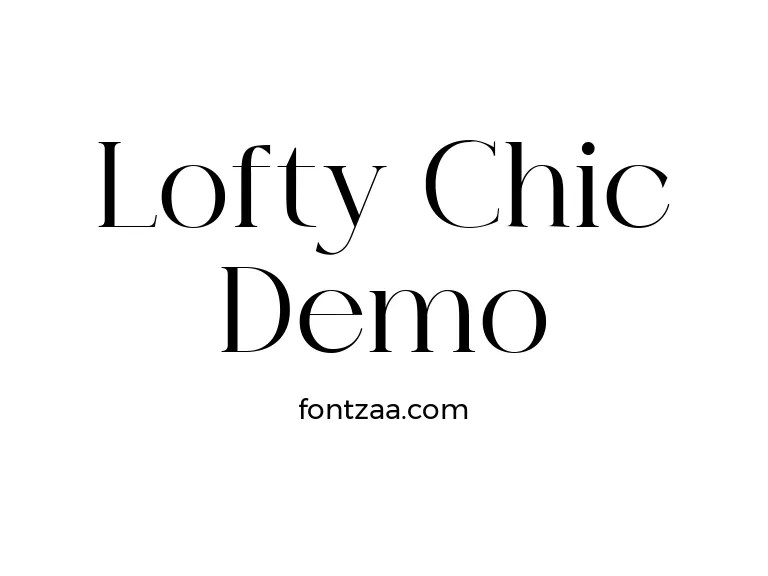
Lofty Chic Demo Font introduces a modern typographic style that can give creative projects a more individual appearance. Designers exploring a modern typeface can use Lofty Chic Demo Font to add a more recognizable visual voice to creative display work. Testing several arrangements before choosing the final version can reveal which characteristics of the typeface work best. The typeface can change considerably depending on tracking, scale, alignment, background and surrounding imagery. The font can work as the primary visual element in a minimal layout or as part of a more detailed composition. Its display-focused appearance makes it worth testing in logos, wordmarks, branding, posters, packaging and promotional graphics. A clean serif or sans serif companion can handle smaller text while this font remains focused on headlines and key messages. Designers should evaluate the typeface inside the real project because a standalone preview cannot show every possible visual combination. The designer or publisher information available for this typeface is Suandana Ipandemade. License details are currently listed as Free for personal use. Users should verify the supplied documentation before using the font in products or paid projects. Testing the font with the actual project text can provide a much better impression than viewing isolated sample characters.
Designers exploring a modern typeface can use Lofty Chic Demo Font to add a more recognizable visual voice to headlines, branding and promotional layouts. The typeface can change considerably depending on tracking, scale, alignment, background and surrounding imagery. Its letter shapes become especially noticeable at larger sizes, where spacing and proportions can be explored more clearly. Different color combinations can make the same font feel subtle, energetic, premium or highly decorative. Possible applications include logos, wordmarks, branding, posters, packaging and promotional graphics. Previewing the final layout on both large and small screens helps identify spacing and readability problems early. For layouts containing longer information, pairing it with a simpler supporting typeface can improve readability and hierarchy. According to the available font information, the typeface is associated with Suandana Ipandemade. The listed license is Free for personal use, although users should still review the original font package before commercial use. Testing the font with the actual project text can provide a much better impression than viewing isolated sample characters.
For projects that need typography with a stronger identity, Lofty Chic Demo Font offers a modern direction suited to digital and print projects. Testing several arrangements before choosing the final version can reveal which characteristics of the typeface work best. Its letter shapes become especially noticeable at larger sizes, where spacing and proportions can be explored more clearly. Different color combinations can make the same font feel subtle, energetic, premium or highly decorative. The font can be considered for projects such as logos, wordmarks, branding, posters, packaging and promotional graphics. A clean serif or sans serif companion can handle smaller text while this font remains focused on headlines and key messages. Keeping secondary typography simple often allows the distinctive qualities of the main font to remain more visible. Source metadata currently associates the font with Suandana Ipandemade. License details are currently listed as Free for personal use. Users should verify the supplied documentation before using the font in products or paid projects. Testing the font with the actual project text can provide a much better impression than viewing isolated sample characters.
Lofty Chic Demo Font Family
The Lofty Chic Demo Font Family can be explored in multiple compositions by adjusting typography size, spacing and surrounding design elements. For projects that need typography with a stronger identity, Lofty Chic Demo Font offers a modern direction suited to font-family exploration. The typeface can change considerably depending on tracking, scale, alignment, background and surrounding imagery. Different color combinations can make the same font feel subtle, energetic, premium or highly decorative. Testing several arrangements before choosing the final version can reveal which characteristics of the typeface work best. Creative uses may range from logos, wordmarks, branding, posters, packaging and promotional graphics, with different results depending on scale and layout. A clean serif or sans serif companion can handle smaller text while this font remains focused on headlines and key messages. Keeping secondary typography simple often allows the distinctive qualities of the main font to remain more visible. Source metadata currently associates the font with Suandana Ipandemade. License details are currently listed as Free for personal use. Users should verify the supplied documentation before using the font in products or paid projects. Its final appearance will depend heavily on the surrounding colors, imagery, spacing and supporting typography.
Using Lofty Chic Demo Font for Posters and Social Media
Designers exploring a modern typeface can use Lofty Chic Demo Font to add a more recognizable visual voice to posters, campaigns, thumbnails and promotional content. The font can work as the primary visual element in a minimal layout or as part of a more detailed composition. The typeface can change considerably depending on tracking, scale, alignment, background and surrounding imagery. Its letter shapes become especially noticeable at larger sizes, where spacing and proportions can be explored more clearly. Possible applications include logos, wordmarks, branding, posters, packaging and promotional graphics. A clean serif or sans serif companion can handle smaller text while this font remains focused on headlines and key messages. Keeping secondary typography simple often allows the distinctive qualities of the main font to remain more visible. The available source information lists Suandana Ipandemade as the designer or publisher. The available licensing label is Free for personal use, but redistribution and commercial permissions should always be confirmed from the original source. Experimenting directly in the intended design is usually the best way to judge whether the typeface suits the project.
Tips for Better Results With Lofty Chic Demo Font
Designers exploring a modern typeface can use Lofty Chic Demo Font to add a more recognizable visual voice to spacing, contrast, scale and layout decisions. Different color combinations can make the same font feel subtle, energetic, premium or highly decorative. The font can work as the primary visual element in a minimal layout or as part of a more detailed composition. Using generous space around the lettering can help the details of the typeface remain visible instead of competing with other elements. Possible applications include logos, wordmarks, branding, posters, packaging and promotional graphics. Designers should evaluate the typeface inside the real project because a standalone preview cannot show every possible visual combination. A clean serif or sans serif companion can handle smaller text while this font remains focused on headlines and key messages. The designer or publisher information available for this typeface is Suandana Ipandemade. The available licensing label is Free for personal use, but redistribution and commercial permissions should always be confirmed from the original source. Experimenting directly in the intended design is usually the best way to judge whether the typeface suits the project.
Best Uses for Lofty Chic Demo Font
Lofty Chic Demo Font stands out through its individual shapes and can become an important visual element in practical ways designers can use the typeface. Its letter shapes become especially noticeable at larger sizes, where spacing and proportions can be explored more clearly. Using generous space around the lettering can help the details of the typeface remain visible instead of competing with other elements. The font can work as the primary visual element in a minimal layout or as part of a more detailed composition. The font can be considered for projects such as logos, wordmarks, branding, posters, packaging and promotional graphics. Previewing the final layout on both large and small screens helps identify spacing and readability problems early. Keeping secondary typography simple often allows the distinctive qualities of the main font to remain more visible. Source metadata currently associates the font with Suandana Ipandemade. The available licensing label is Free for personal use, but redistribution and commercial permissions should always be confirmed from the original source. Experimenting directly in the intended design is usually the best way to judge whether the typeface suits the project.
Visual Features of Lofty Chic Demo Font
With its distinctive letterforms, Lofty Chic Demo Font can introduce a modern character into the visual characteristics and design personality of the typeface. The typeface can change considerably depending on tracking, scale, alignment, background and surrounding imagery. Testing several arrangements before choosing the final version can reveal which characteristics of the typeface work best. Using generous space around the lettering can help the details of the typeface remain visible instead of competing with other elements. The font can be considered for projects such as logos, wordmarks, branding, posters, packaging and promotional graphics. Designers should evaluate the typeface inside the real project because a standalone preview cannot show every possible visual combination. Keeping secondary typography simple often allows the distinctive qualities of the main font to remain more visible. The available source information lists Suandana Ipandemade as the designer or publisher. The listed license is Free for personal use, although users should still review the original font package before commercial use. Testing the font with the actual project text can provide a much better impression than viewing isolated sample characters.